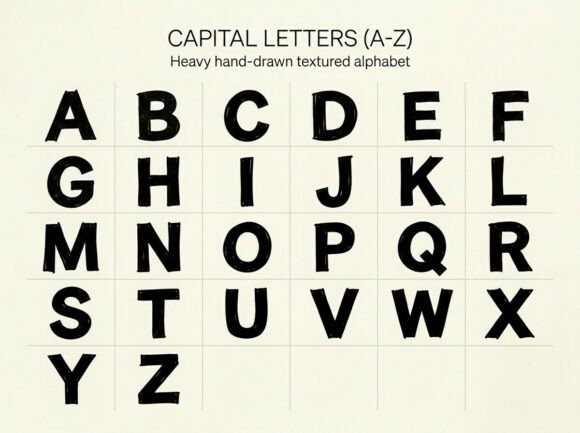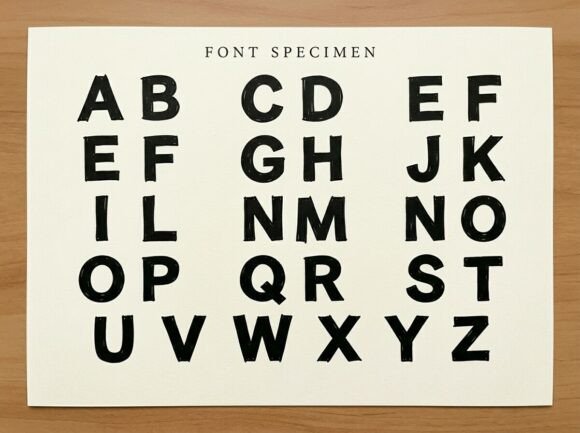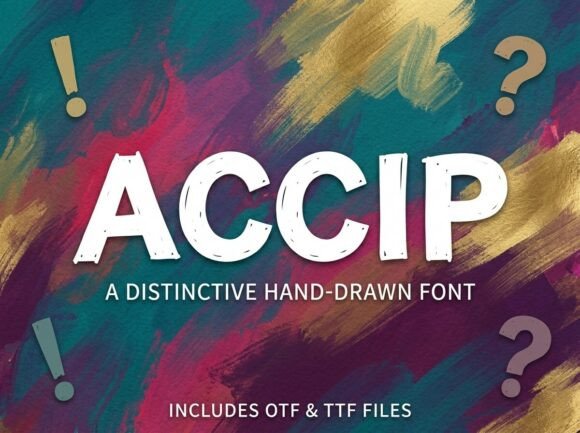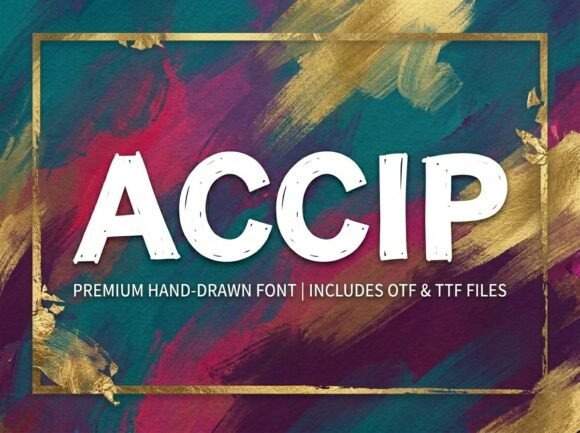
The Accip Font: A Stunning Decorative Display Font to Elevate Your Designs
Have you ever been working on a project, pouring your heart and soul into every detail, only to get stuck on one thing: finding the perfect font? I remember a particularly frustrating experience when I was designing a logo for a client. I wanted something that would make their brand stand out, but every font I tried seemed either too bland or too over-the-top. That’s when I stumbled upon the Accip Font, and it completely transformed my design.
An Honest Review of Accip Font
- ✨ Unique artistic elements that add a touch of elegance to any design
- ✅ Strong visual personality that commands attention
- 💼 Versatile enough for bold headlines, artistic logos, and creative packaging
- 👍 Professional and polished finish that elevates any project
⚠️ One thing to note is that Accip Font is an ALL-CAPS (Uppercase Only) display typeface. This means it doesn’t include lowercase letters, which might be a limitation for some projects. However, this also means that every letter is a work of art, making it perfect for high-impact headlines, logos, and decorative initials.
The Designer Inspiration Behind Accip Font
While the true story behind Accip Font remains a mystery, it’s easy to imagine that the designer was inspired by the world of art and architecture. Perhaps they wanted to create a font that would evoke the grandeur of ancient monuments or the elegance of modern art. Whatever the inspiration, Accip Font is a testament to the power of typography to elevate and transform any design.
| Q: Is Accip Font suitable for body text? | A: No, Accip Font is a display typeface designed for high-impact headlines, logos, and decorative initials. It’s not ideal for body text. |
| Q: Does Accip Font include Cyrillic or other non-Latin characters? | A: This font is specifically designed for Latin characters and does not include Cyrillic or other non-Latin characters. |